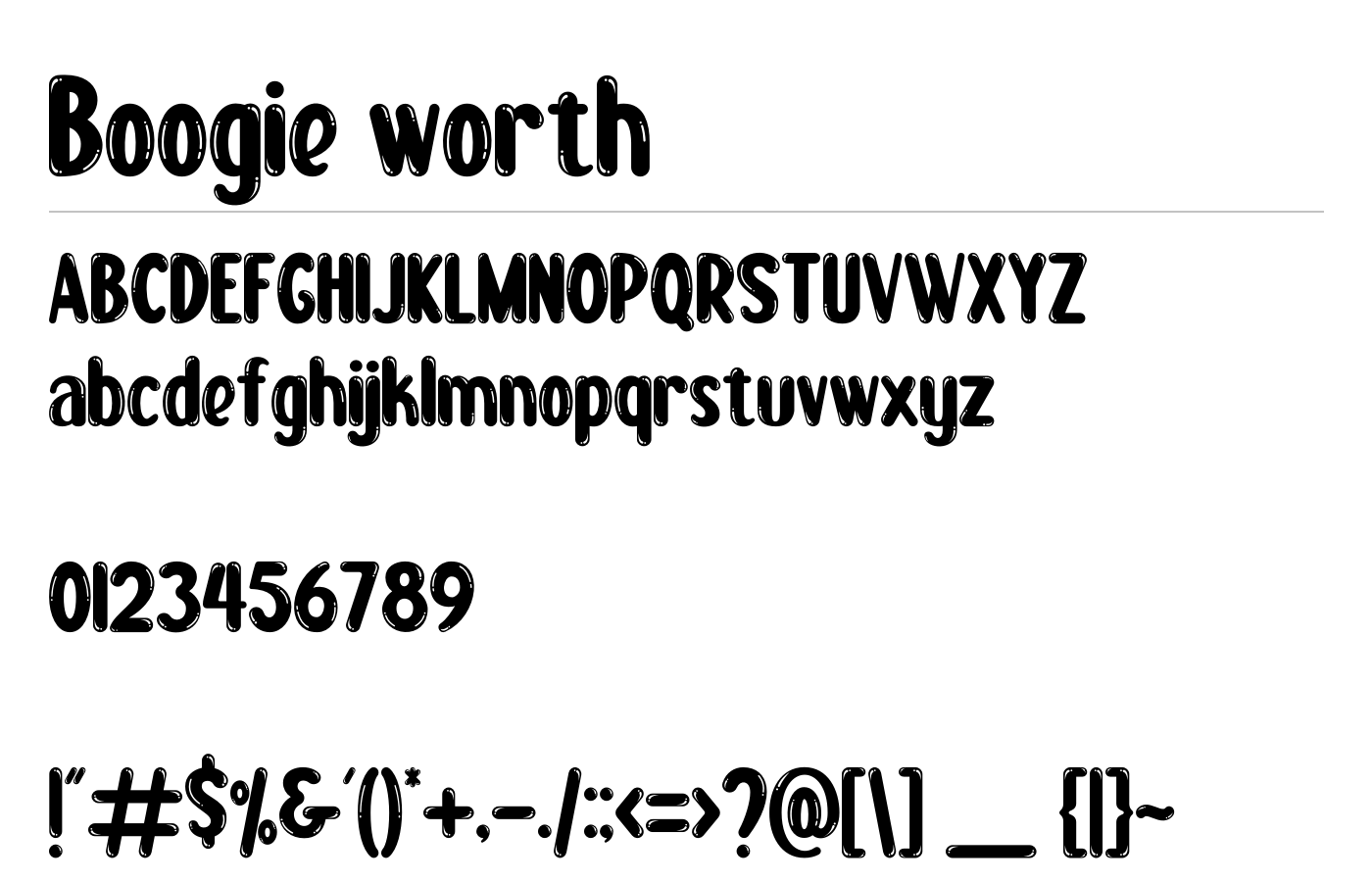
Boogie Worth is a playful and bold sans serif font with a quirky, rounded style that gives it a fun and approachable personality. Its moderate weight, condensed width, and lively letterforms make it perfect for eye-catching headlines, logos, and branding that aim to convey energy and creativity. This font works well in designs that seek a friendly and informal vibe, especially in entertainment, kids’ products, or casual branding.
Boogie worth Font
About Boogie worth Font